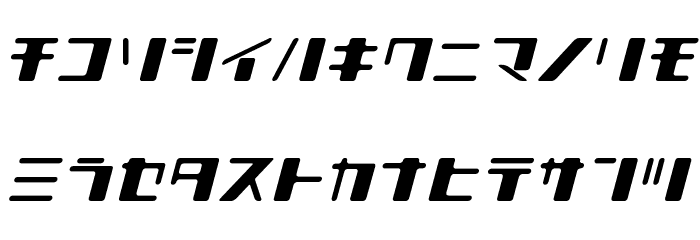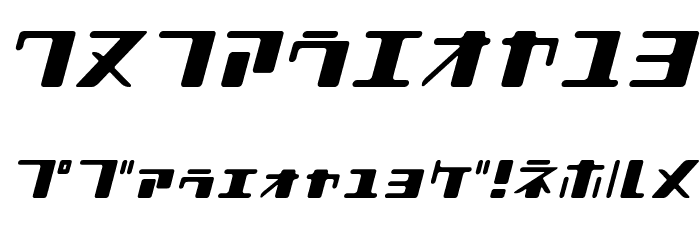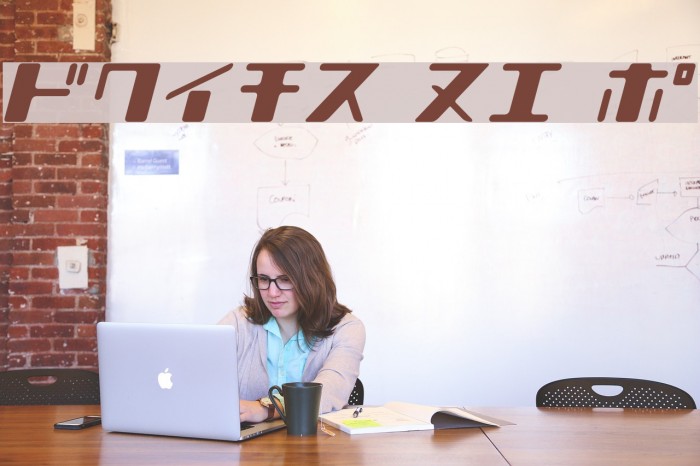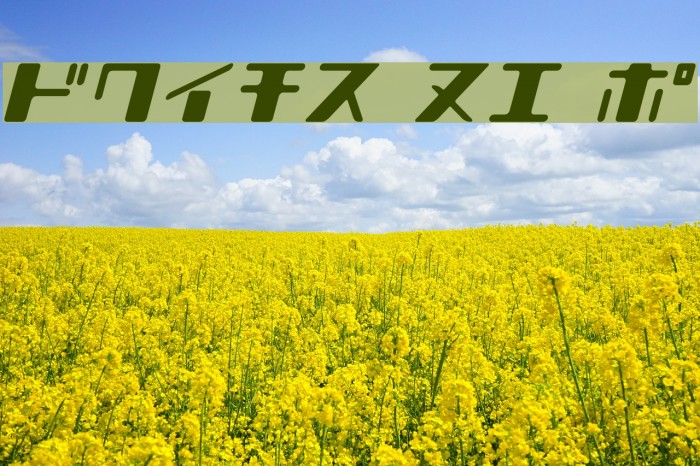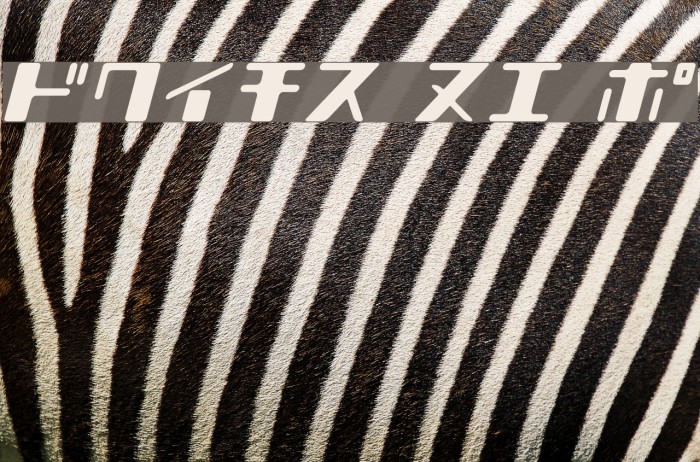
Shear 15_K Font
This font features a bold and dynamic style with a distinct slant, giving it a sense of motion and energy. The characters are uniformly thick, with a consistent stroke width that adds to its bold appearance. The design is geometric, with sharp angles and clean lines, creating a modern and futuristic look. The spacing between characters is tight, which enhances its compact and cohesive feel. This font is ideal for making a strong visual impact and is suitable for projects that require a contemporary and assertive typeface.
A bold, slanted font with a geometric and modern design.
- Proposed Projects: Ideal for sports branding, tech-related designs, dynamic posters, and modern advertising campaigns.
- Character Spacing: Tight